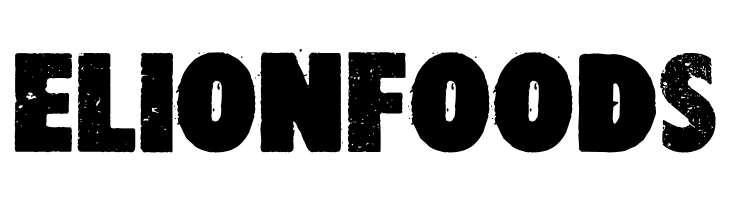
A bold, geometric font with sharp angles and a blocky, industrial style.
A bold, artistic font with thick, rounded strokes and unique cutouts.
A bold, modern font with high contrast and geometric shapes.
A whimsical, fluid font with a hand-drawn, playful style.
A bold, distressed font with a grunge texture, perfect for impactful designs.
A bold, distressed font with a playful, grunge style.
A bold, modern font with thick, uniform strokes and a geometric style.
A modern, geometric font with a tall, condensed structure and consistent stroke width.
A modern, geometric typeface with a clean and professional look.
A modern, sans-serif font with clean lines and balanced spacing.
A bold, dynamic font with a slight slant and smooth curves.
A bold, distressed font with a vintage, rugged texture.
A modern sans-serif font with clean lines and balanced proportions.
A bold, modern sans-serif font with a clean and professional appearance.
A bold, italic sans-serif font with a modern and dynamic style.
A clean, modern italic font with smooth curves and excellent readability.